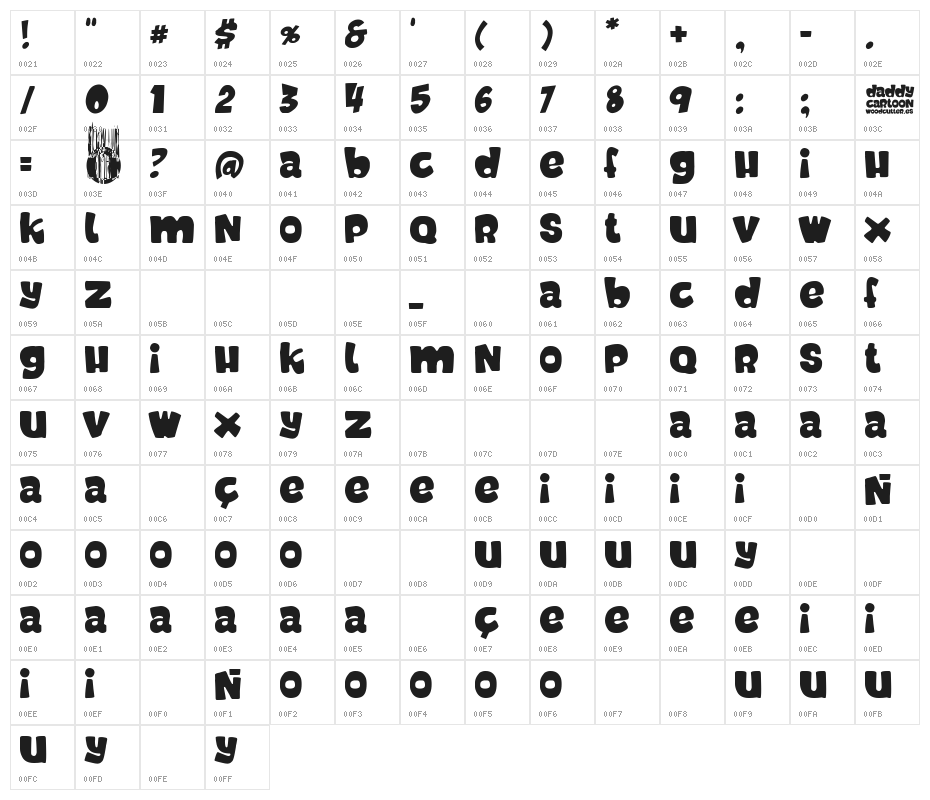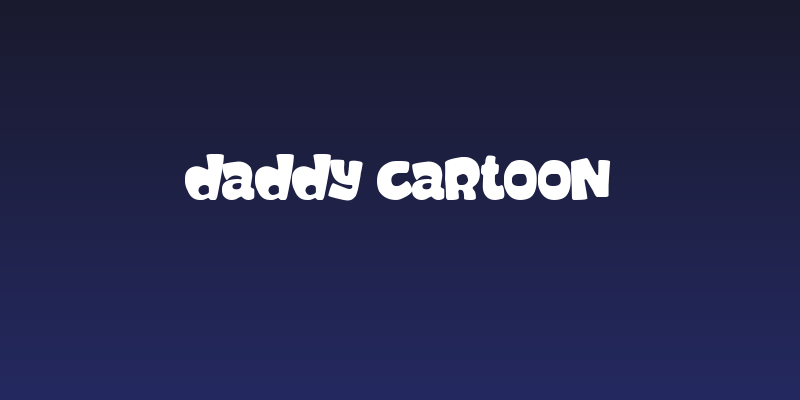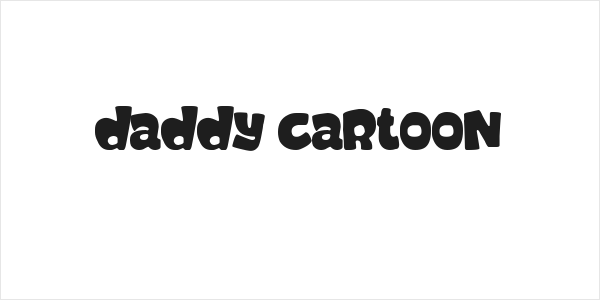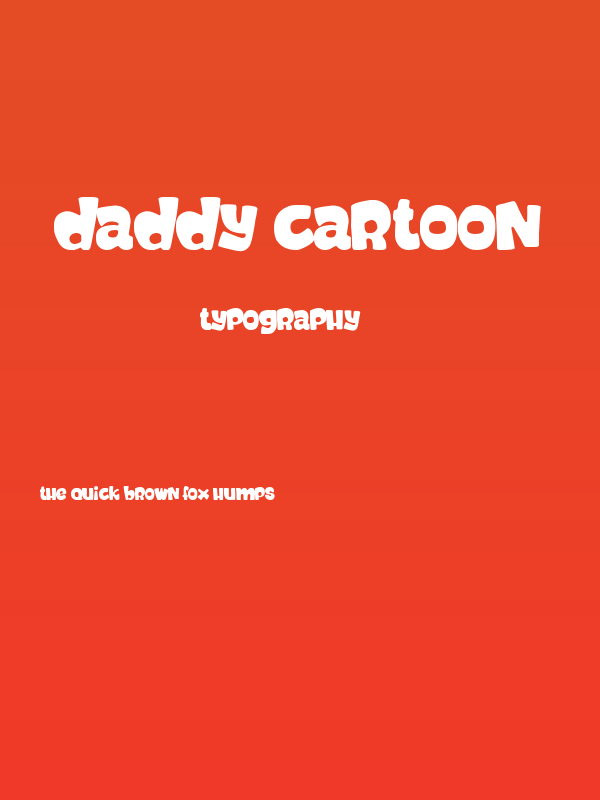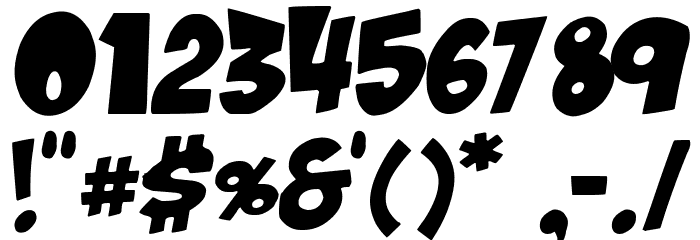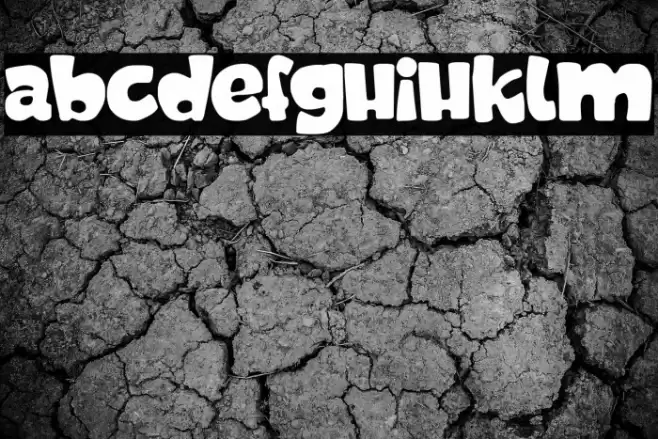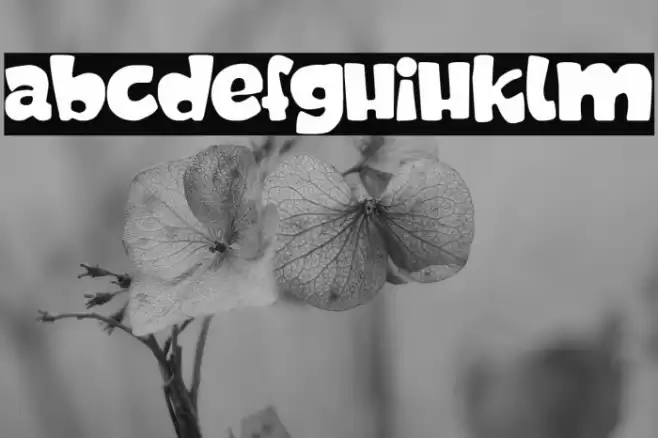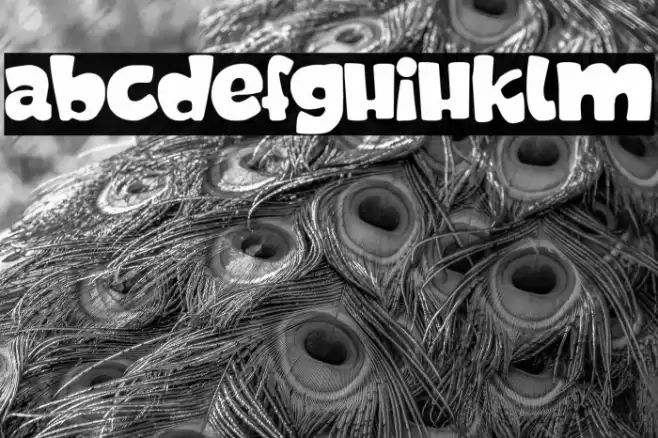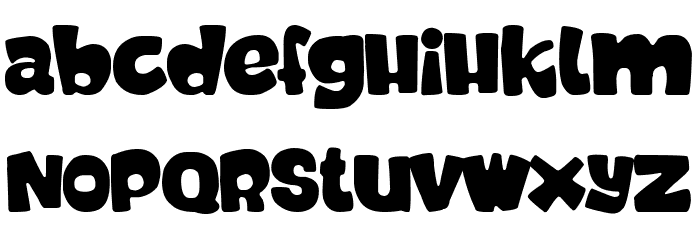
Daddy Cartoon Font
| Style général | Playful, Cartoonish |
| Projets proposés | Perfect for children's books, comic strips, playful branding, and party invitations. |